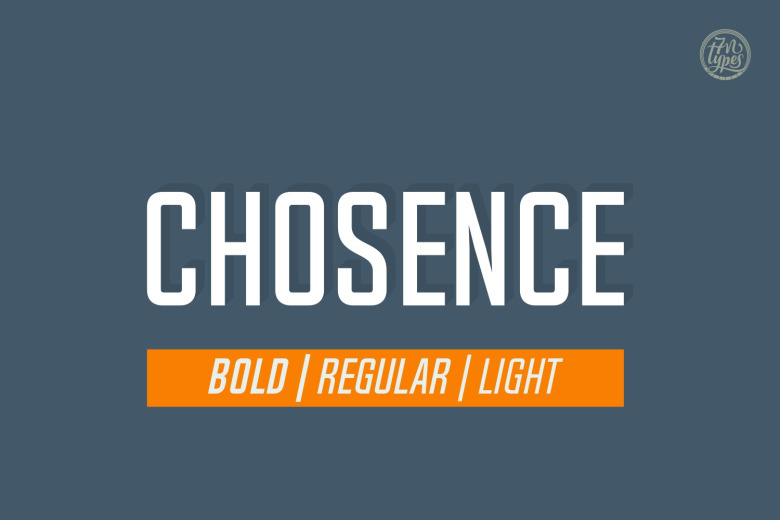
Chosence Font
Chosence is a elegant sans serif family that comes with 6 fonts (Regular, Light & Bold – All with an italic version). This font is designed by 7NTypes and is available for free download and personal use. The free version provides all uppercase and lowercase letters and a few special characters too.
Chosence Sans Serif Font Family